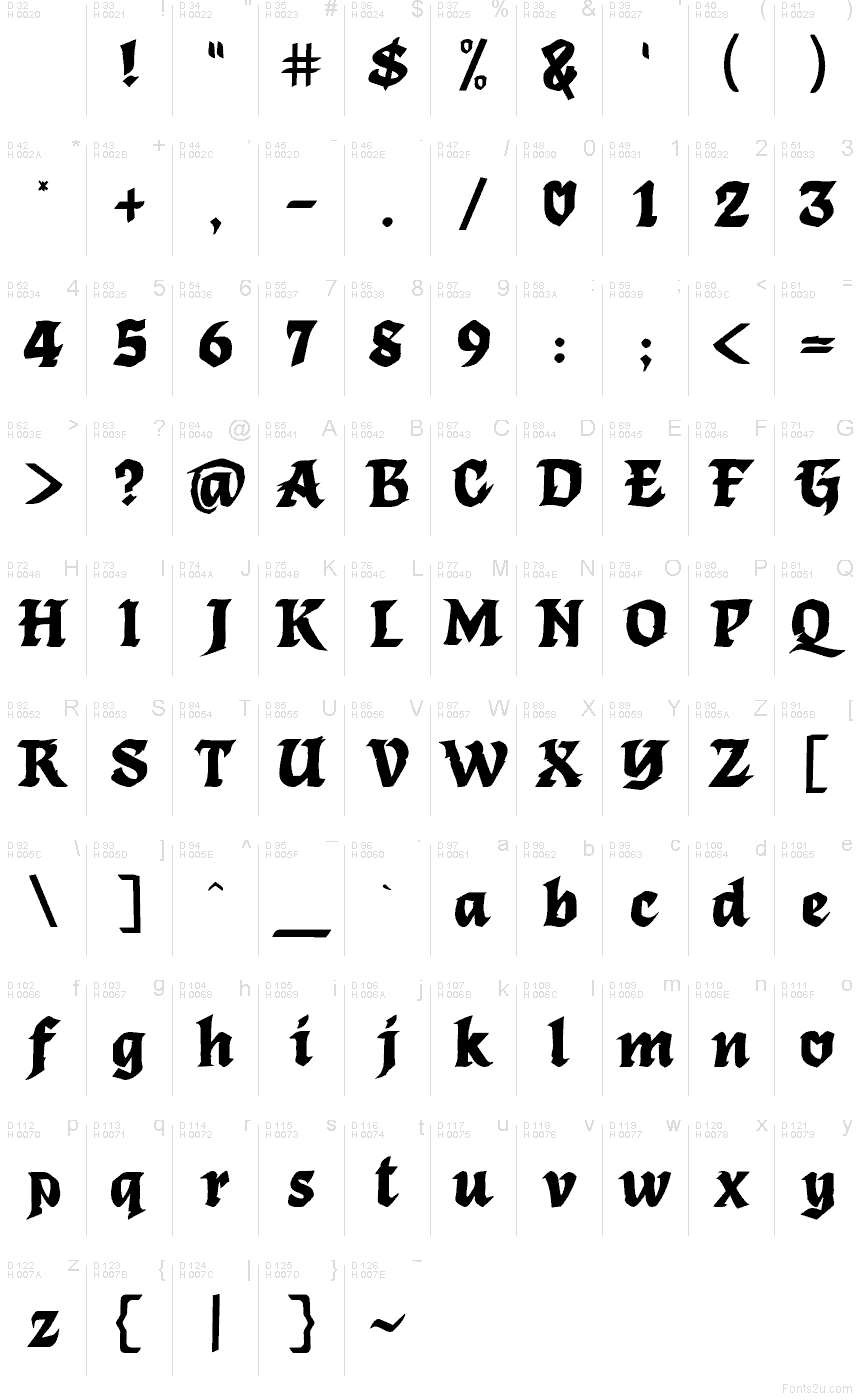
Ritual of the Witch
Ritual of the Witch font by BlackFridayFont FMF is a free gothic font that drips with occult drama and old-world menace. Its jagged blackletter curves feel like they’ve been scratched into parchment with a rusty quill, with dense, inky strokes that pull the eye straight to the title. The rhythm is tight and heavy, giving every word the weight of a whispered spell or forbidden chapter.
Using Ritual of the Witch, your horror posters, Halloween flyers, dark fantasy book covers, metal band logos, and game titles suddenly feel ritualistic and cinematic. This free font shines when set large and bold, letting the angular flourishes breathe. For body copy or subtitles, pair it with a simple sans serif to keep the vibe eerie but readable.